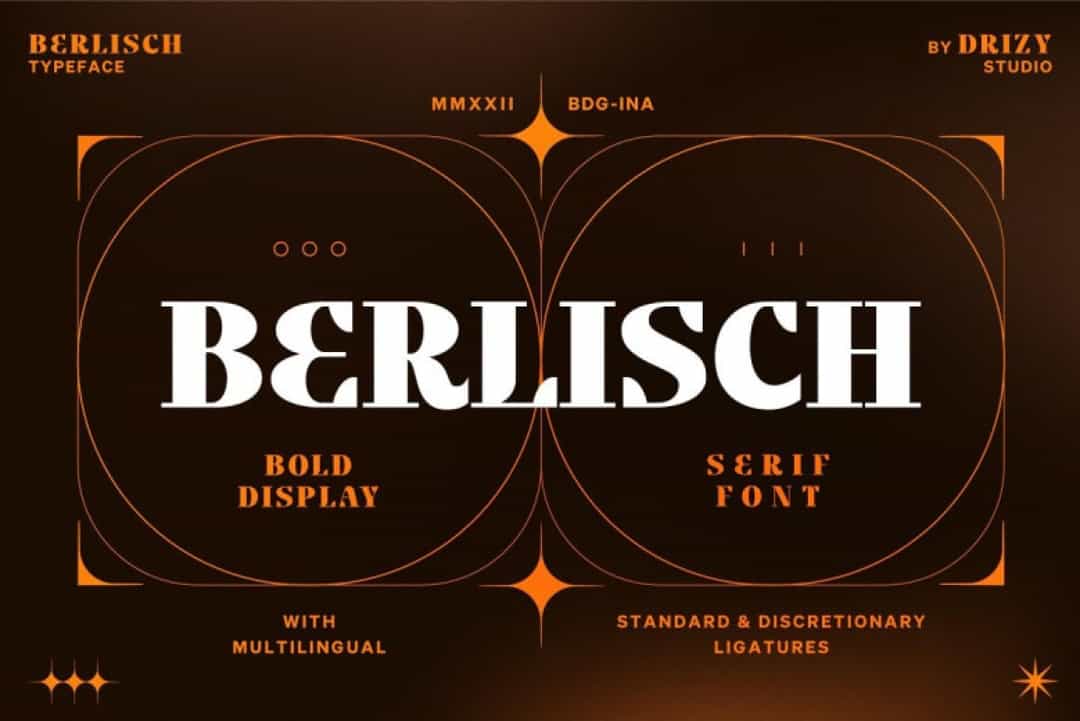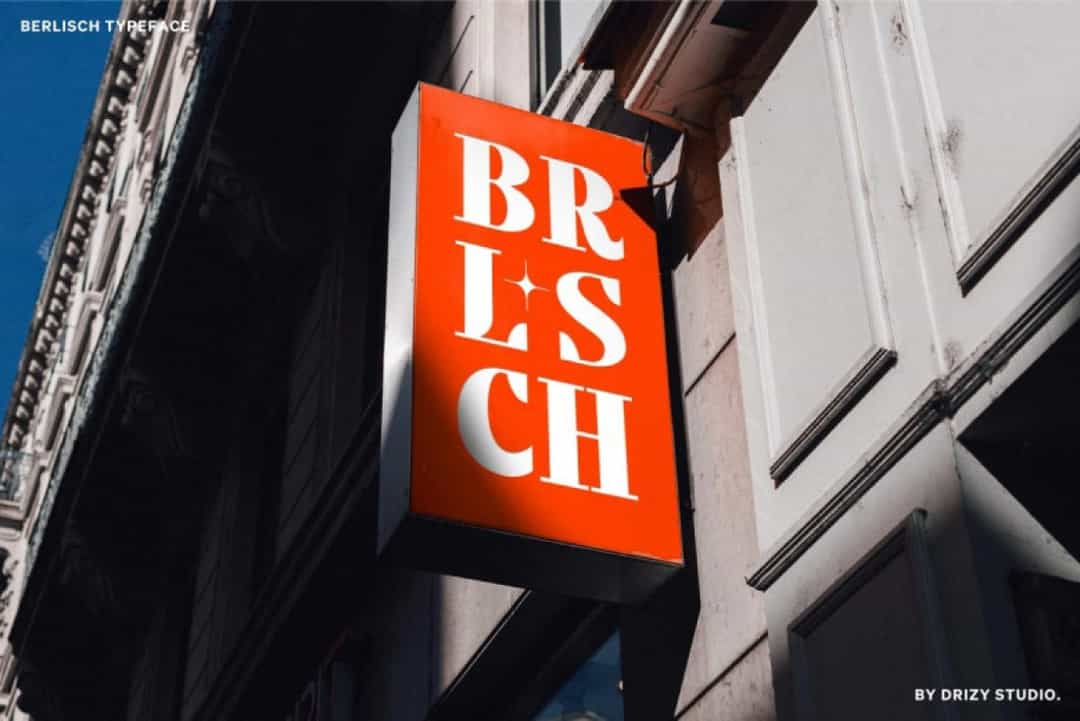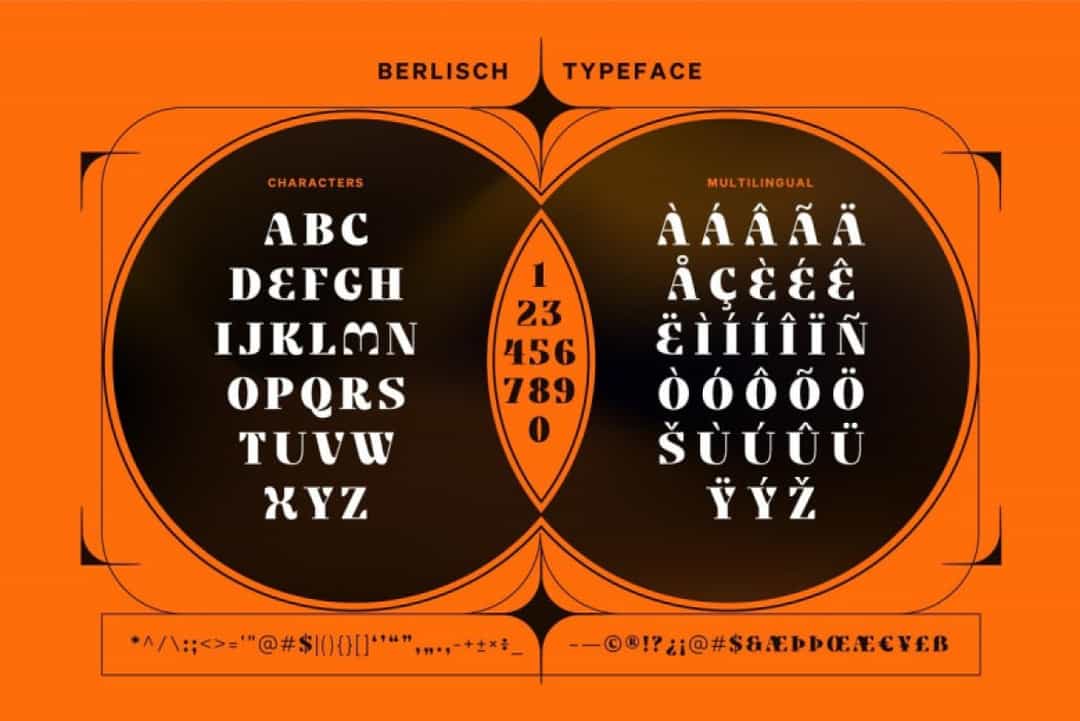
Berlisch by Drizy is an exquisite display serif font featuring elegant, classic and stylish display serif font designs to meet all of your project requirements. Use Meave as an eye-catching option in magazine layouts, logotypes and any graphics needing modern yet sophisticated graphics designs.